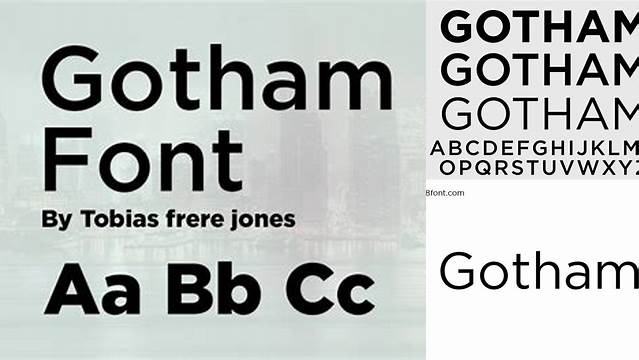
Hey guys! Are you on the hunt for the perfect font to elevate your design projects? Look no further! In this comprehensive guide, we're diving deep into the world of Gotham Regular font and how you can snag a free download from DaFont. Gotham Regular is a widely acclaimed typeface known for its clean, modern, and versatile aesthetic. It’s a favorite among designers for everything from branding and advertising to editorial design and web interfaces. So, let’s get started and explore why Gotham Regular is so popular and how you can get your hands on it for free on DaFont.
What Makes Gotham Regular So Special?
Gotham Regular font has become a staple in the design world, and for good reason. Its clean lines and geometric structure give it a contemporary yet timeless appeal. The Gotham typeface was created by Tobias Frere-Jones in 2000 and quickly gained recognition for its readability and versatility. Its design is inspired by the architectural signage of mid-century New York City, reflecting a sense of modernity and urban sophistication. This font family is celebrated for its neutral appearance, making it suitable for a wide array of applications, from body text to headlines. The consistent letterforms and even spacing enhance its legibility, ensuring it looks great in both print and digital formats. Whether you’re designing a sleek logo, crafting an engaging website, or creating professional marketing materials, Gotham Regular offers a polished and refined look that can elevate your project. Its versatility extends to various design styles, fitting seamlessly into both minimalist and more elaborate designs. The balance between functionality and aesthetic appeal is what sets Gotham Regular apart and makes it a top choice for designers across the globe.
Why Choose Gotham Regular for Your Projects?
Choosing the right font is crucial for any design project, and the Gotham Regular font offers a plethora of benefits that make it a standout choice. Firstly, its exceptional readability ensures that your message is conveyed clearly and effectively, whether it’s in a small paragraph or a large headline. This makes it particularly useful for projects where clarity is paramount, such as websites, brochures, and presentations. Secondly, Gotham Regular’s versatility allows it to adapt to various design styles. Its neutral and modern appearance means it can fit seamlessly into anything from corporate branding to creative marketing campaigns. You can use it for logos, body text, headings, and more, all while maintaining a consistent and professional look. Moreover, Gotham Regular exudes a sense of sophistication and modernity, which can enhance the perceived quality of your design. It brings a contemporary edge to any project, making it appear polished and up-to-date. If you're aiming for a clean, professional aesthetic, Gotham Regular is a reliable option. It’s also widely recognized, meaning it communicates a sense of familiarity and trustworthiness. By choosing Gotham Regular, you’re not just selecting a font; you’re making a statement about the quality and attention to detail in your work. Its timeless appeal ensures that your designs will remain relevant and stylish for years to come.
Top Alternatives to Gotham Regular on DaFont
While the Gotham Regular font itself may not be available for free download on DaFont, there are numerous excellent alternatives that capture its clean, geometric aesthetic. These alternatives can provide a similar look and feel for your projects without the hefty price tag. One popular choice is Montserrat, a widely used sans-serif font that shares Gotham’s modern and legible design. Montserrat features clean lines and a geometric structure, making it a versatile option for both headlines and body text. Another excellent alternative is Bebas Neue, a tall and sleek sans-serif font that exudes a contemporary vibe. While Bebas Neue is slightly more condensed than Gotham, it offers a similar minimalist appeal, making it ideal for posters, titles, and branding materials. Open Sans is another standout choice, known for its readability and neutral appearance. This font is incredibly versatile and works well in a variety of contexts, from web design to print projects. Its clean and open letterforms make it a great option for body text, ensuring a pleasant reading experience. Lato is also worth considering, as it blends a semi-rounded sans-serif typeface with a touch of warmth. Lato’s clean and modern design makes it suitable for both headlines and body text, providing a friendly yet professional look. Another notable alternative is Raleway, a geometric sans-serif that offers a stylish and sophisticated feel. Raleway’s elegant letterforms make it a great choice for logos, headings, and other display purposes. When selecting an alternative, consider the specific needs of your project and how well the font aligns with your overall design goals. By exploring these options on DaFont, you can find the perfect Gotham Regular substitute that fits your aesthetic and budget.
Once you’ve downloaded and installed your new Gotham Regular font alternative from DaFont, the next step is to use it effectively in your design projects. Typography plays a crucial role in the overall look and feel of your work, so here are some tips to help you make the most of your new font. Firstly, consider the context of your project. A font that works well for a website headline might not be the best choice for body text. Gotham Regular, and similar geometric sans-serif fonts, are versatile but still have their strengths. They often excel in headings, logos, and branding materials due to their clean and modern appearance. For body text, ensure the font is highly readable. Look for alternatives like Open Sans or Lato, which offer excellent legibility at smaller sizes. Secondly, pay attention to font pairing. Combining different fonts can add visual interest and hierarchy to your design. A common approach is to pair a sans-serif font like your Gotham alternative with a serif font for body text, or vice versa. Websites like FontPair can provide inspiration for font combinations that work well together. Thirdly, use proper spacing and sizing. Adjusting the kerning (the space between individual letters) and leading (the space between lines of text) can significantly impact readability. Too little space can make text feel cramped, while too much can make it appear disjointed. Experiment with different sizes to ensure your text is legible and visually appealing. Additionally, consider the color and contrast of your text. Ensure there is sufficient contrast between the text and the background to make it easy to read. Light text on a dark background or dark text on a light background generally works best. Finally, avoid using too many fonts in a single design. Sticking to two or three fonts creates a cohesive and professional look. By following these tips, you can use your new font effectively to create visually appealing and impactful designs.
So, there you have it, guys! A comprehensive guide to finding and using Gotham Regular font alternatives for free on DaFont. While the original Gotham Regular may not be available for free, there are plenty of fantastic fonts out there that capture its essence and can elevate your design projects. Remember, typography is a crucial element of design, and choosing the right font can make all the difference. By exploring resources like DaFont and using the tips outlined in this guide, you can create stunning visuals that communicate your message effectively. Happy designing!